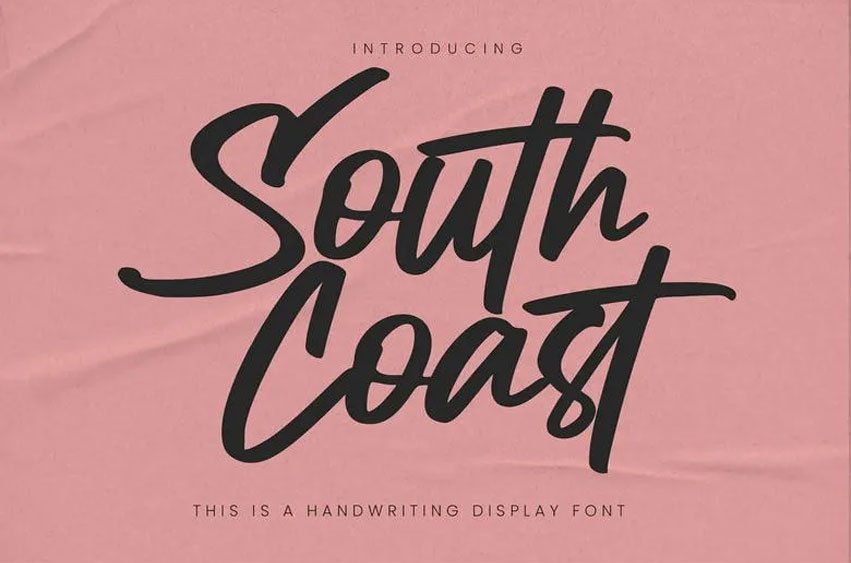
South Coast Handwritting Font is a Handwritting Display Font of owning a modern and script on writing effortlessly and freely in a casual and fast manner. The best for labels, poster, project designs looks authentic and cool . Especially suitable for labels, quotes, posters, DIY arts, branding and packaging, greeting cards, websites, photography overlaying, signs, scrapbooks, tags and etc.
That is why South Coast has a textured, and unique characteristic more natural look than other type of plane. It also helps you that you can activate Ligatures OpenType panel.